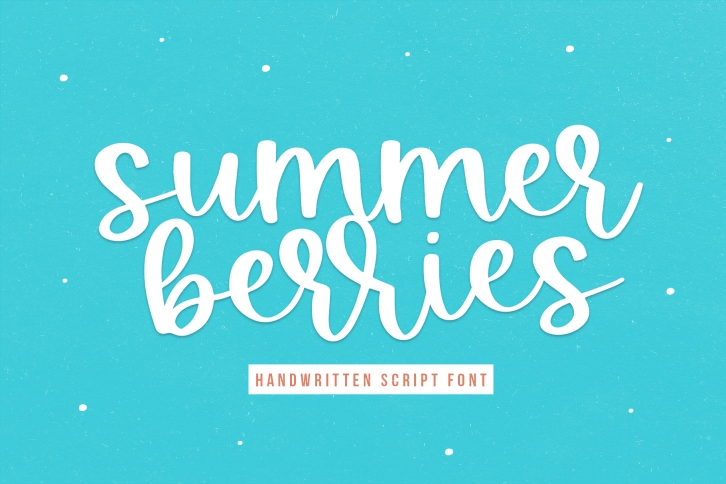
Summer Berries - Handwritten Script Font Download
Summer Berries is a fun handwritten script font.
This font is perfect for your craft projects, branding, logos, shirt deisgn, svg designs and more!